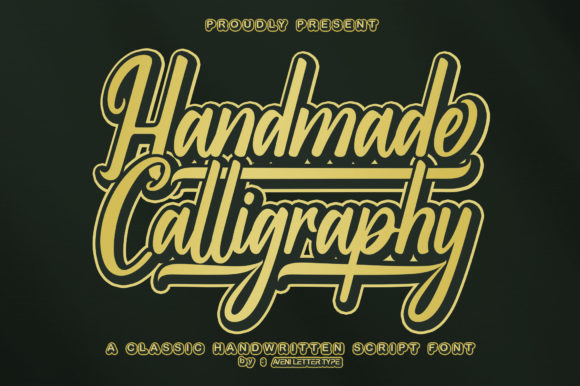
Introducing Handmade Calligraphy Font, the ultimate choice for those seeking the best fonts for social fancy. This script font, designed by Aveni Letter Type, will elevate your creations to new heights with its stylish and neat kerning.
Crafted with expertise, Handmade Calligraphy Font is here to make your designs shine. Whether you're creating stunning outfits, elegant wedding invitations, professional business cards, trendy t-shirt branding, or eye-catching pouch or bag branding, this font is the perfect companion for all your creative endeavors.
But that's not all! Handmade Calligraphy Font is also perfect for social media posts, enabling you to captivate your audience with its unique charm. Imagine the likes and shares pouring in as your posts become the talk of the town.
One of the standout features of Handmade Calligraphy Font is its PUA encoding. This means that you can effortlessly access all the beautiful glyphs and swashes that this font offers. Let your imagination run wild as you experiment with a wide range of decorative elements, adding that extra touch of elegance to your designs.
When it comes to selecting the right font, Handmade Calligraphy Font ticks all the boxes. Its timeless appeal combined with its versatility ensures that it suits a variety of projects, from personal to professional. Let your creativity soar as you seamlessly integrate this font into your artwork, guaranteeing a visually stunning result every time.
Don't settle for ordinary fonts when you can have the extraordinary. Handmade Calligraphy Font is the epitome of elegance and sophistication, designed to leave a lasting impression on anyone who lays eyes on it. Its eye-catching appearance will make your creations stand out from the crowd, capturing attention and leaving a memorable impact.
With Handmade Calligraphy Font, every stroke and curve exudes a sense of artistry and craftsmanship. It's not just a font; it's a masterpiece that will elevate your designs to a whole new level. Let your imagination take flight and create breathtaking works of art that will leave your audience in awe.